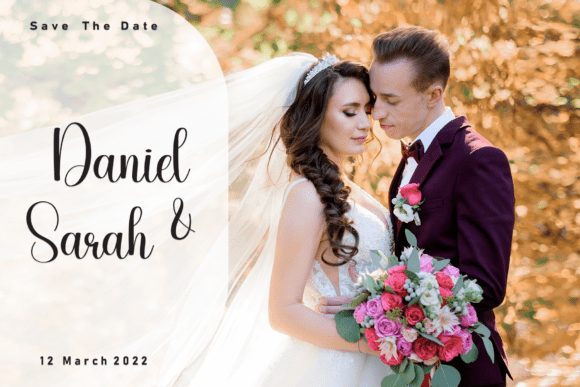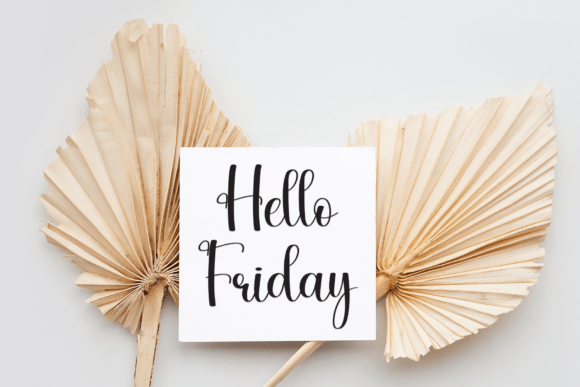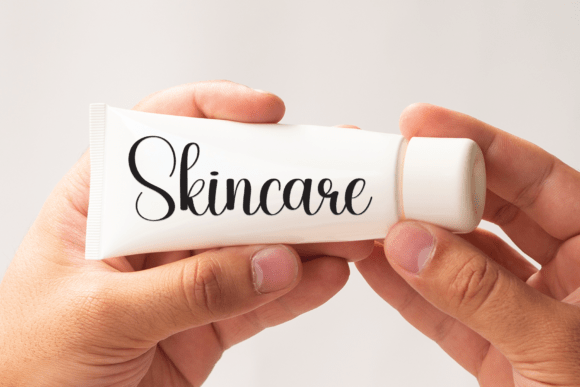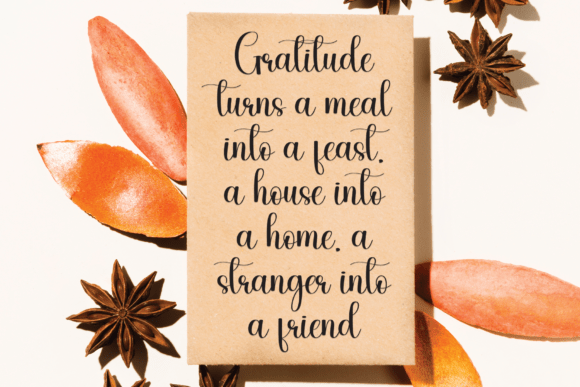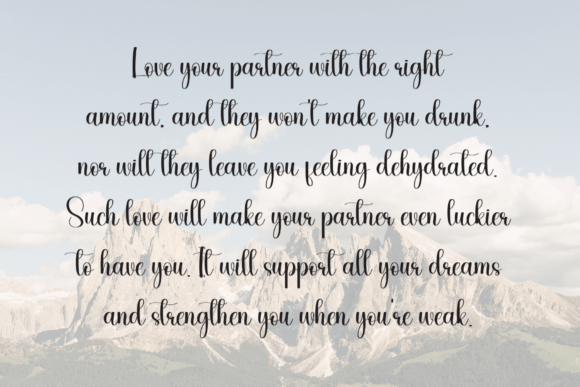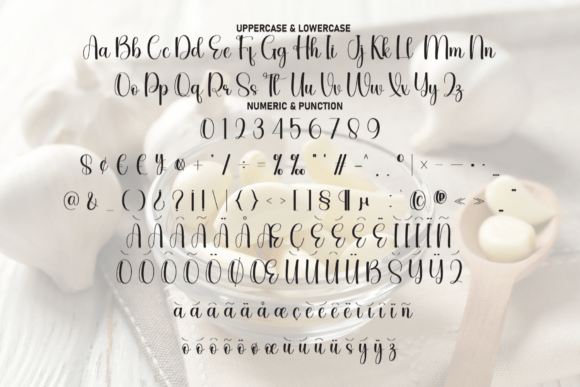
The Elegance of Garlic Font: A Designer’s New Best Friend
I still remember the design project that led me to discover the Garlic font. I was working on a logo for a high-end boutique client, and I was struggling to find the perfect script font that exuded elegance and sophistication. The client wanted something that would make their brand stand out, but still convey a sense of refinement and luxury. After hours of scouring font libraries and design blogs, I stumbled upon Garlic font, and it was love at first sight! ✨
An Honest Review: The Good and the Quirky
So, what makes Garlic font so special? Here are a few things I love:
- ✨ Elegant and refined letterforms that add a touch of sophistication to any design
- ✅ Fluid curves and smooth strokes that create a natural flow
- 💫 Highly versatile and suitable for a wide range of design projects, from logos to social media graphics
- 🎨 Beautifully crafted to take advantage of OpenType features and glyphs
Of course, no font is perfect, and Garlic has a few quirks:
- 🤔 Some users may find the font a bit too slender for certain design applications
- ⚠️ Limited availability of stylistic alternates, which may limit creative experimentation
The Story Behind Garlic Font
While the true story behind Garlic font remains a mystery, it’s easy to imagine a designer with a passion for elegant typography and modern calligraphy creating this beautiful font. Perhaps they were inspired by the flowing curves of handwritten scripts and the sophistication of luxury branding. Whatever the inspiration, Garlic font is a stunning addition to the world of typography.
| What type of design projects is Garlic font best suited for? | Garlic font is highly versatile and suitable for a wide range of design projects, including logos, invitations, packaging, and social media graphics. |
| Is Garlic font suitable for body text? | While Garlic font is beautiful, it’s primarily designed for display purposes. For body text, you may want to choose a more legible font. |